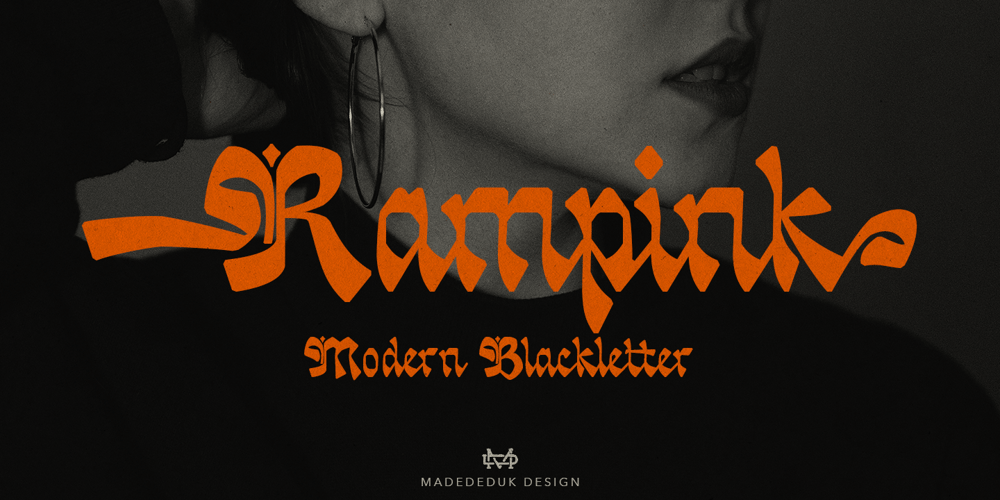
Rampink Font Family was designed by madededuk and published by madeDeduk. Rampink contains 1 styles and family package options. Really excited to introduce Rampink is a modern blackletter font, made with a stylish impression and supported by alternative with references to various letters that I combine. Included: Uppercase & Lowercase Number & Symbol International Glyphs Multilingual Support Alternative Ligature Hope you enjoy it.